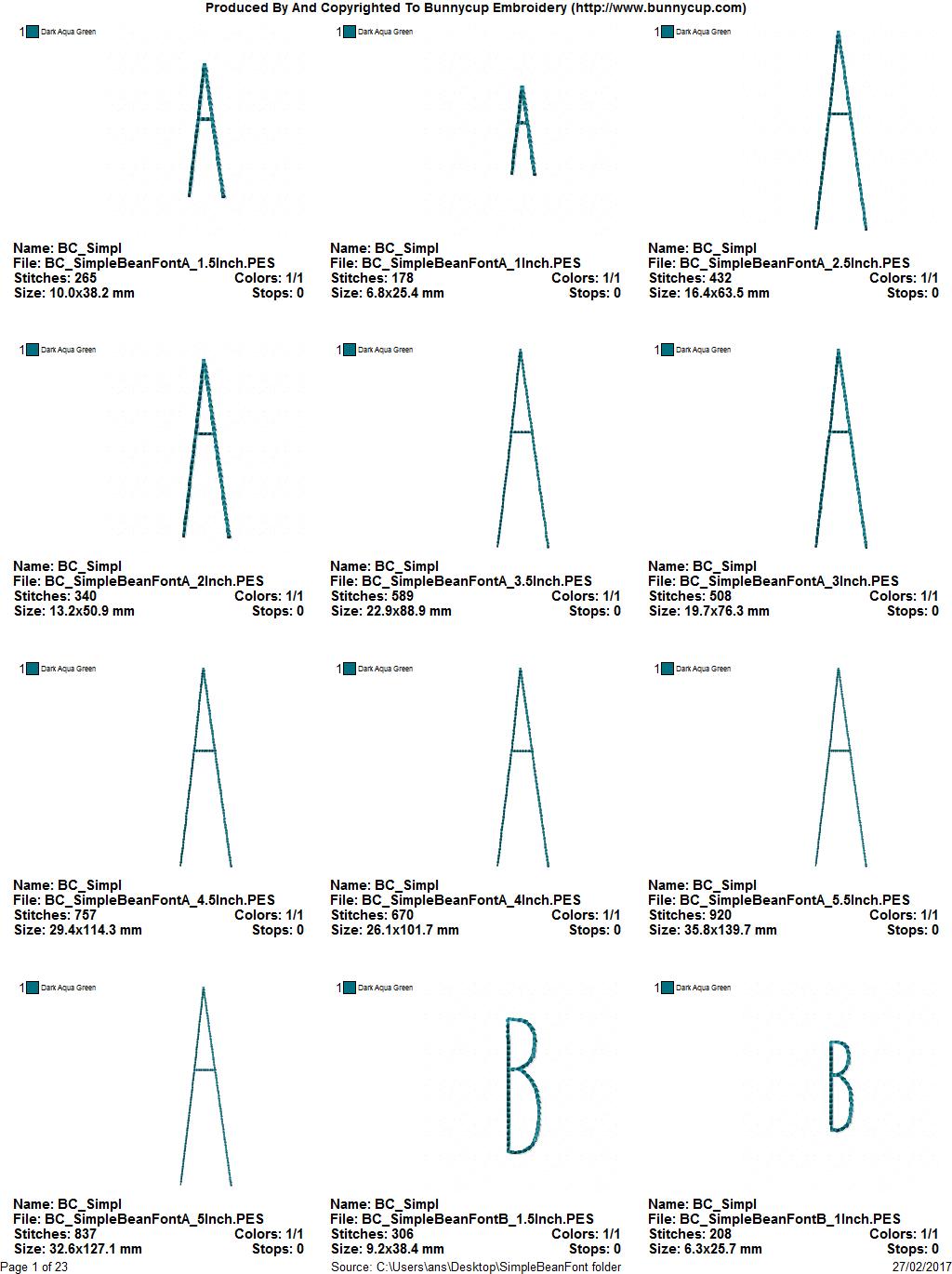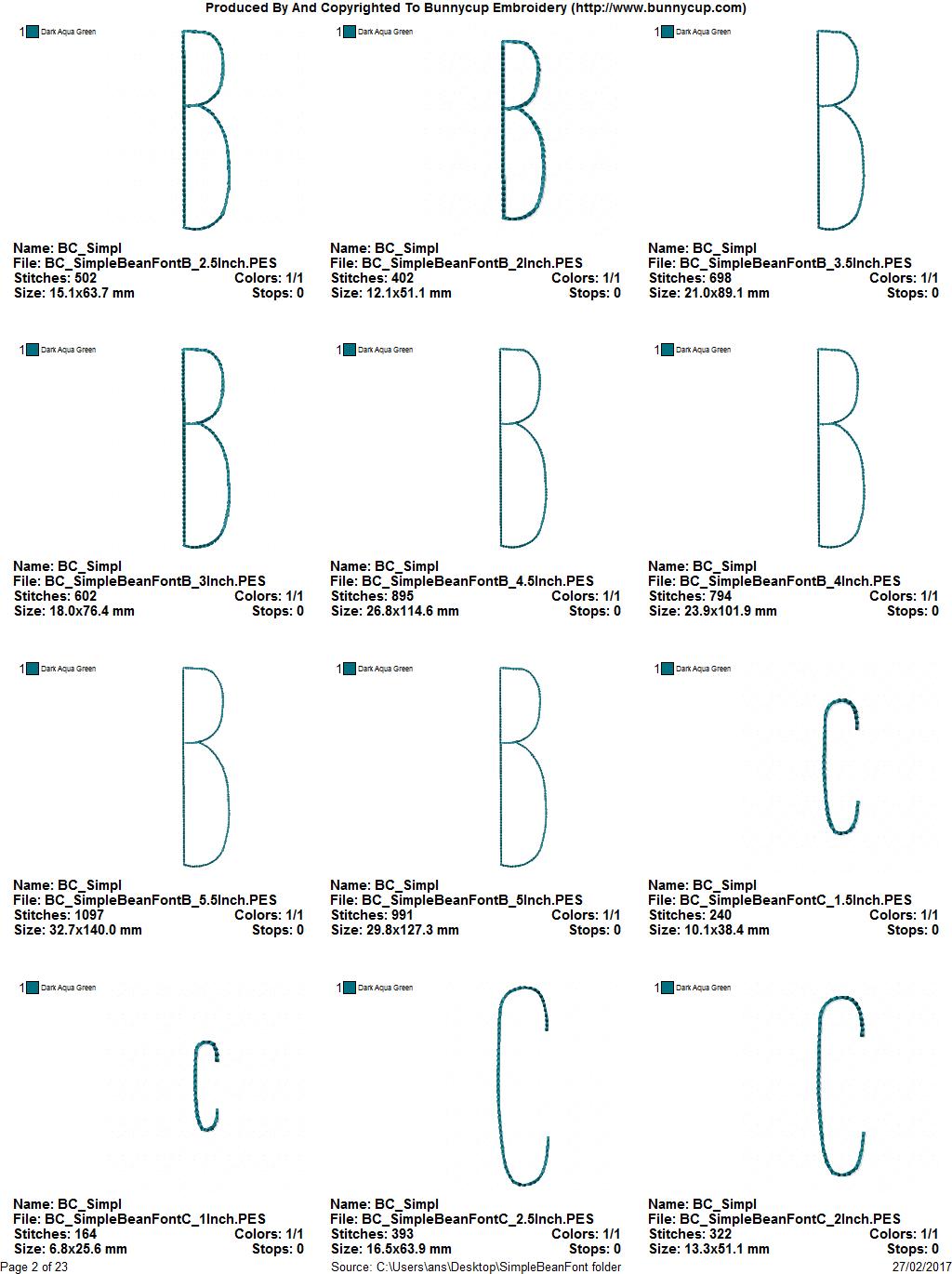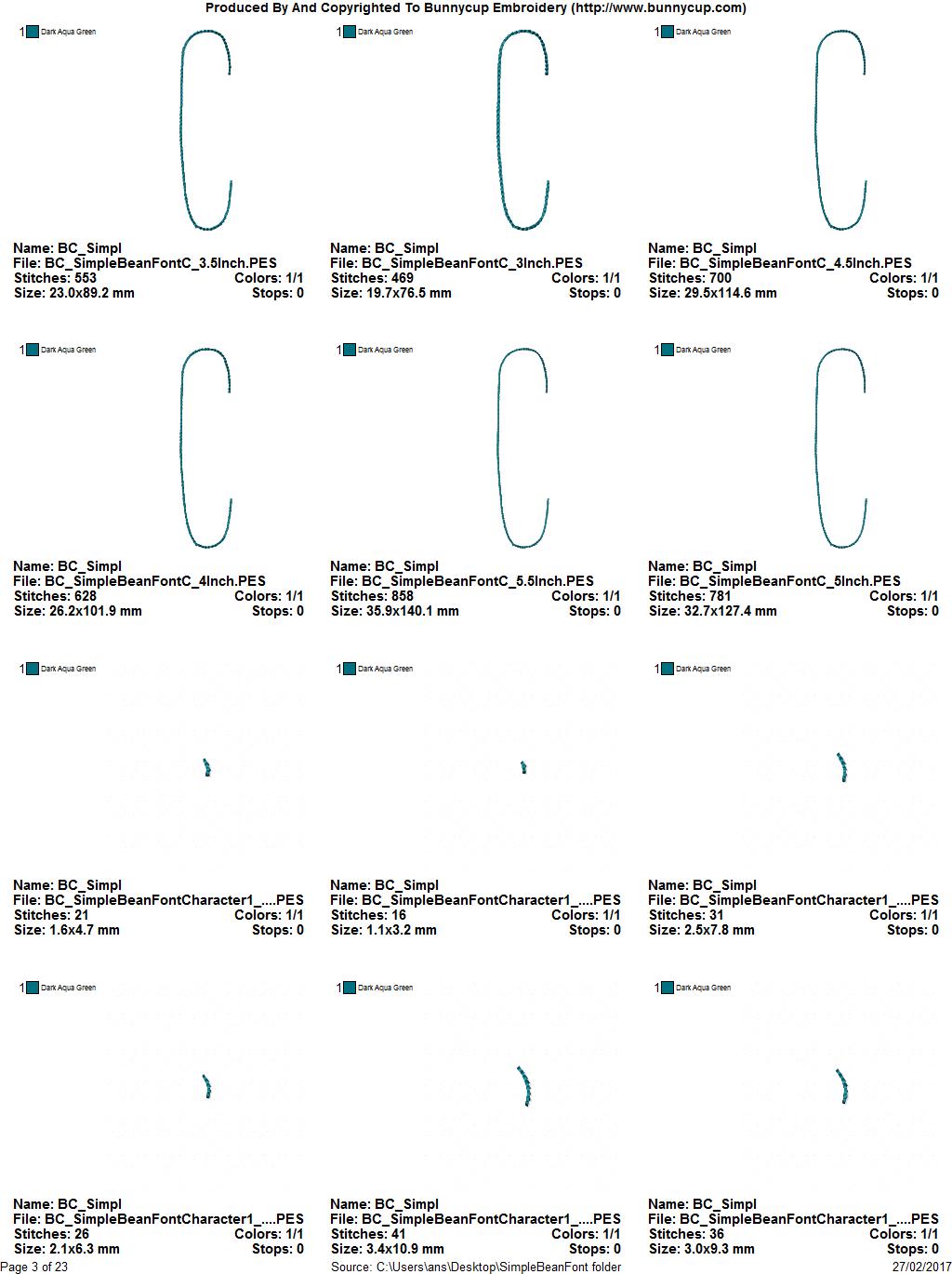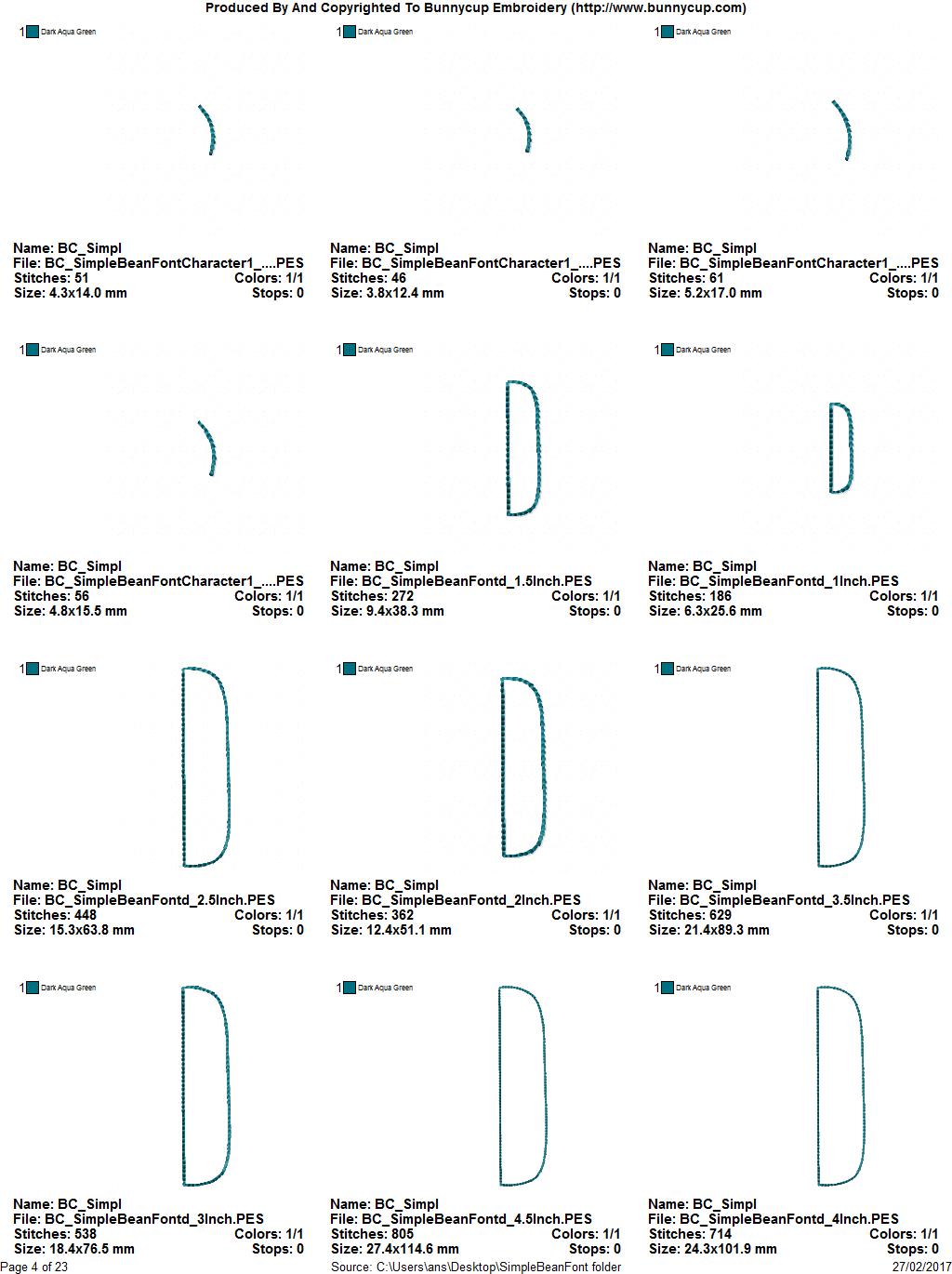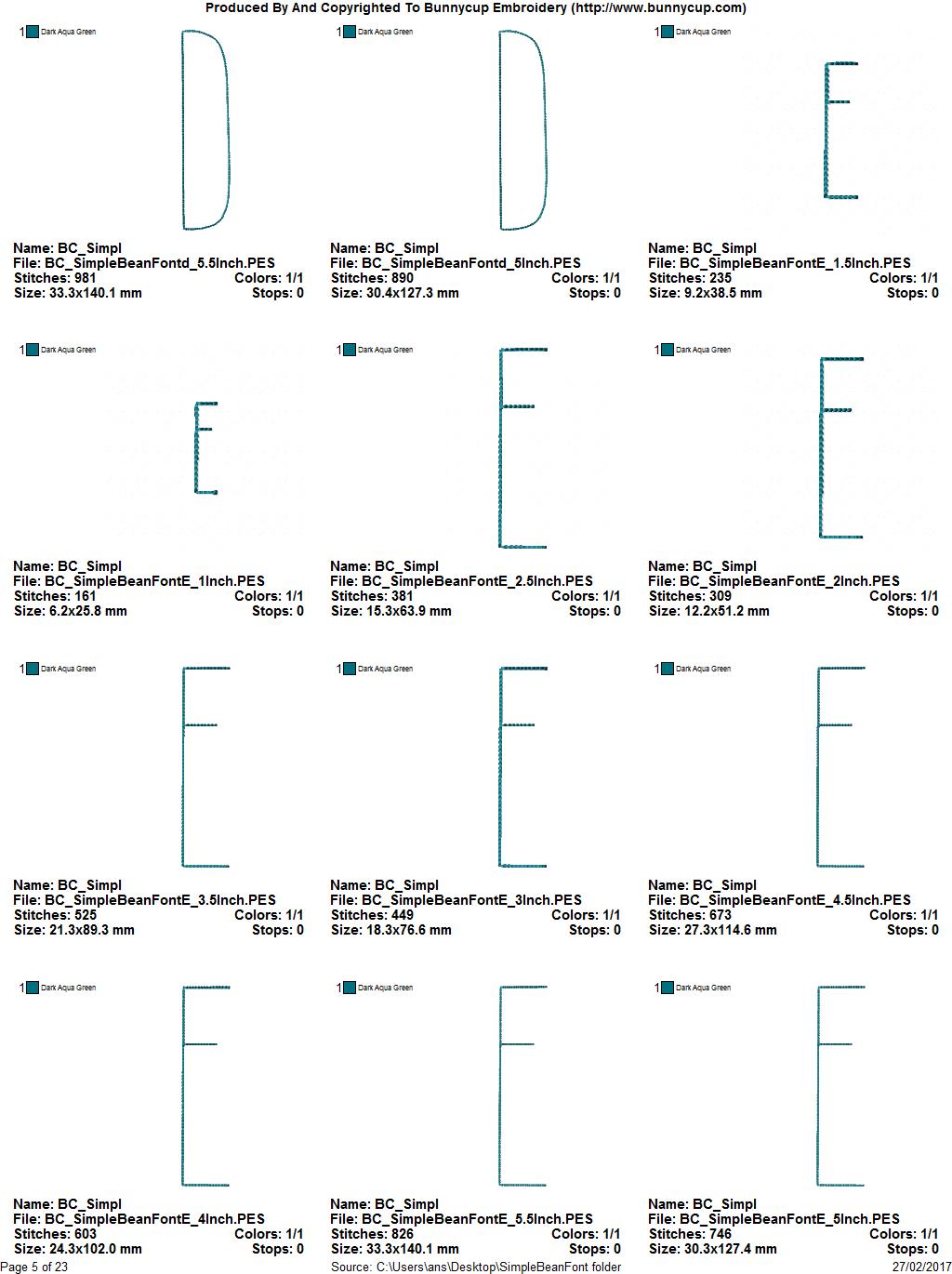
Simple Bean Font
Our Simple Bean Font is a common alphabet used in our sentiments series and is a capitals only font which comes in 10 sizes (1, 1.5, 2, 2.5, 3, 3.5, 4, 4.5, 5 and 5.5 inches). Wilcom EMB files are also included in the downloads for precise resizing with the Wilcom Truesizer software (a free resizing software available at the Wilcom website). BX files are also included for use with the Embrilliance software when purchasing the full alphabet set. See our full range of